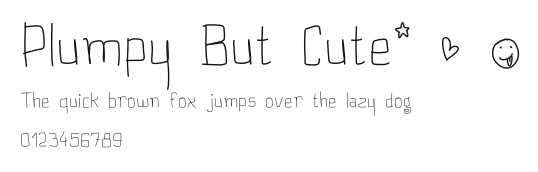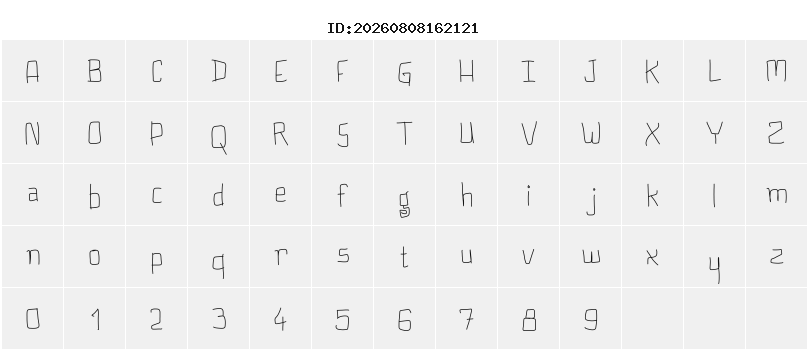
• Font Name: Plumpy But Cute* = _
• Full Font Name: Plumpy But Cute* = _
About Plumpy But Cute* = _.ttf
Plumpy But Cute* = _.ttf is a modern, elegant sans-serif font designed for ultimate readability and visual harmony. Perfect for branding, headlines, web design, and print materials.